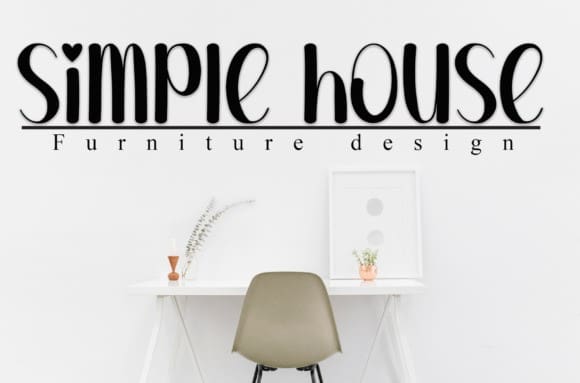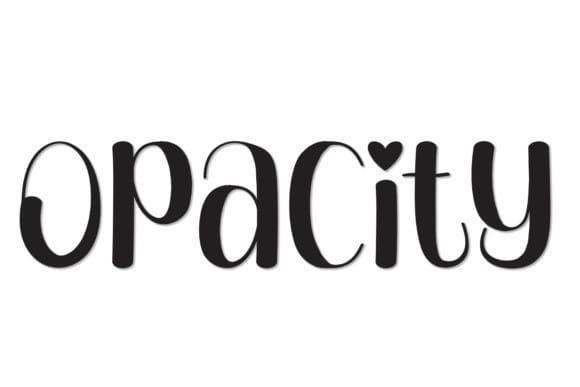
Opacity Font
Opacity Font is a sweet and friendly handwritten font. Fresh and neat, this font is ideal for writing wedding invitations, cards, or any other design that might need a fun touch!